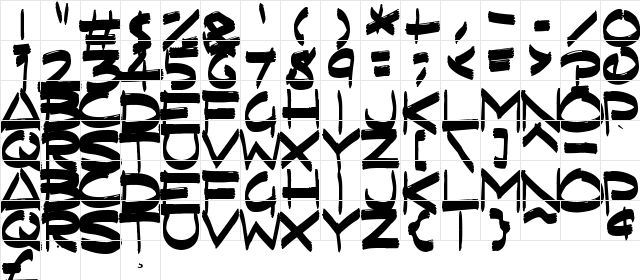
Fast Flat Brush Regular
Design Context for Fast Flat Brush Typeface
Fast Flat Brush flows with the natural rhythm of handwritten lettering, making it ideal for designs that call for warmth and personal expression.
Font Pairing: Combine Fast Flat Brush with a simple geometric sans for maximum contrast — the tension between flowing curves and clean structure is a classic typographic pairing.
Pro Tip: Pair Fast Flat Brush with a clean sans-serif for supporting text. The contrast between fluid script and geometric structure creates an elegant typographic hierarchy.